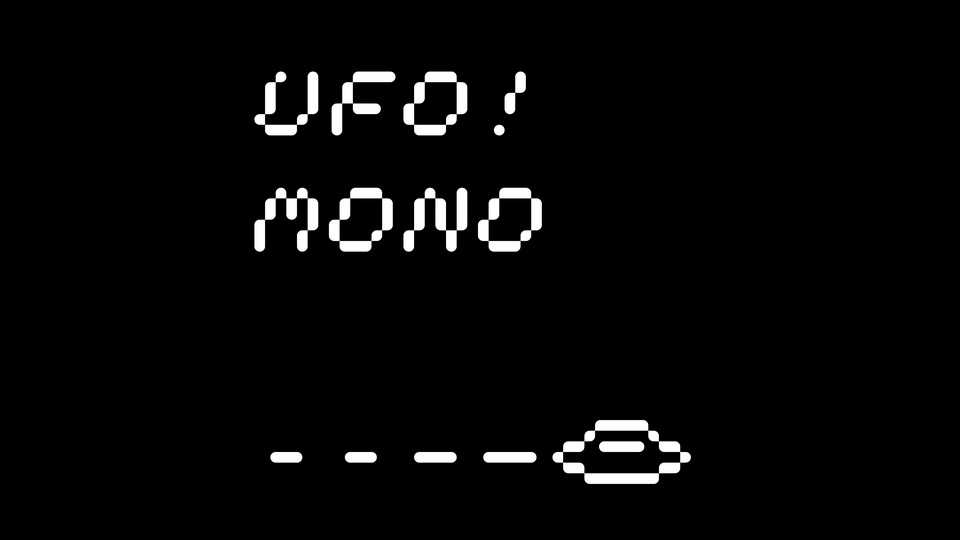
Download UFO! Mono font, a display unicase typeface based on a happy accident, subsequently aligned with the author’s affinity for extra terrestrial life.
Designer: Gunnar Harrison